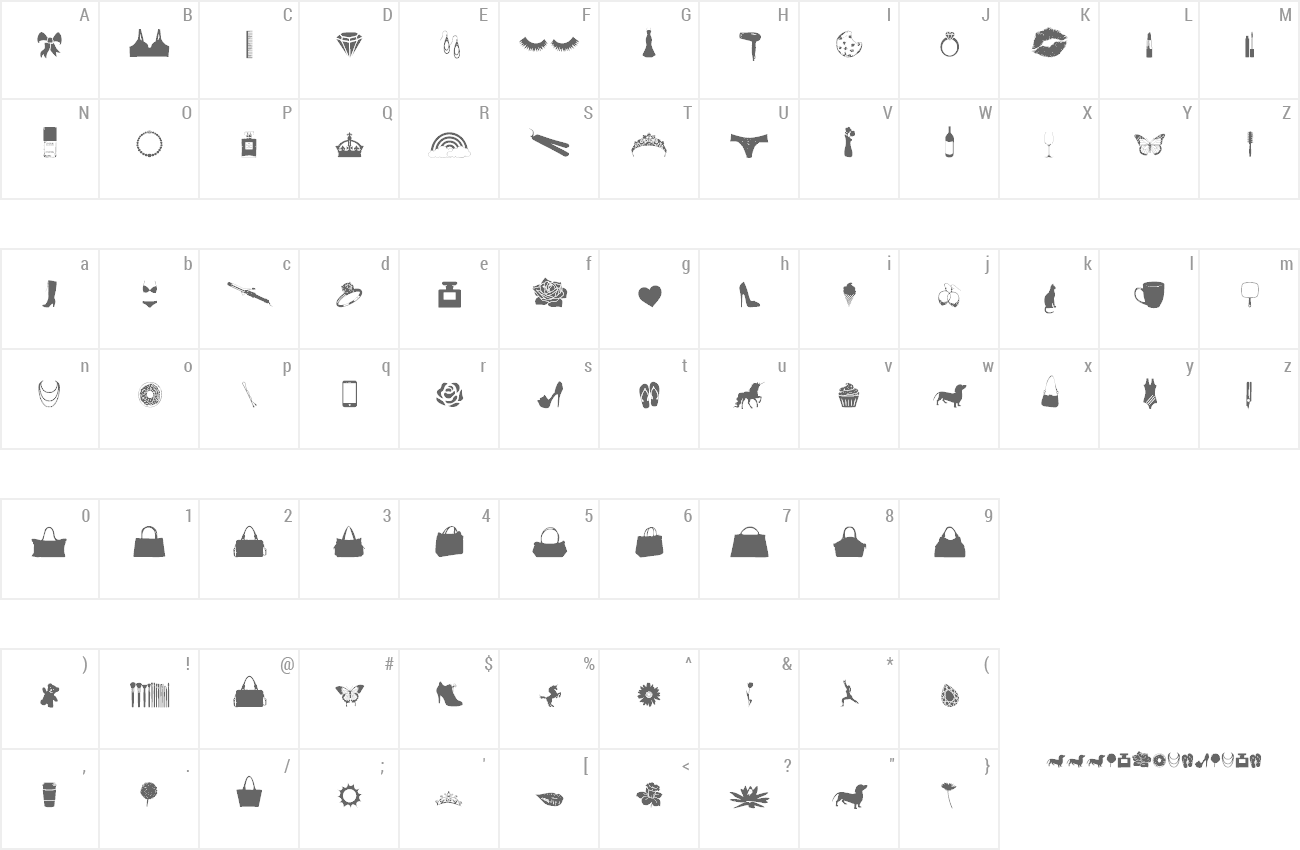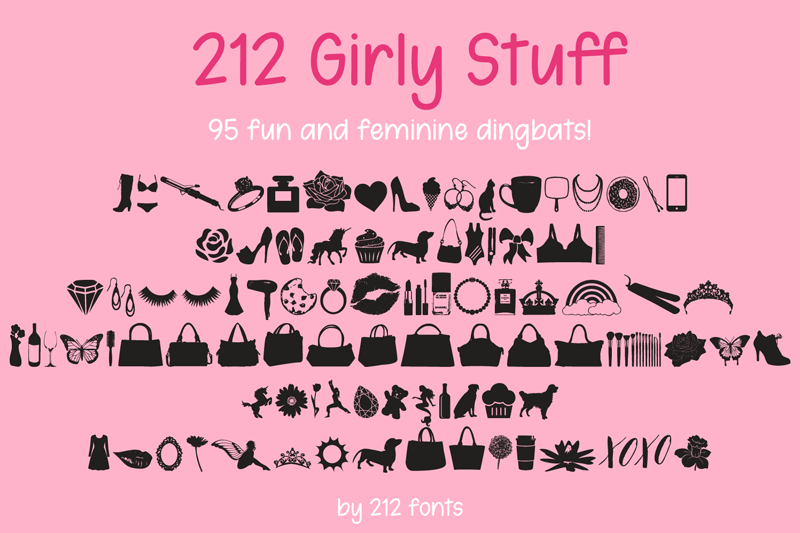
Girly stuff is a fun dingbat made up of a bunch of feminine things! It is free for PERSONAL USE only. Buy a $5 commercial license here: https://www.twenty3stars.com/collections/fonts-by-212-fonts https://www.creativefabrica.com/ref/236350/ https://fontbundles.net/212-fonts Donations appreciated! |